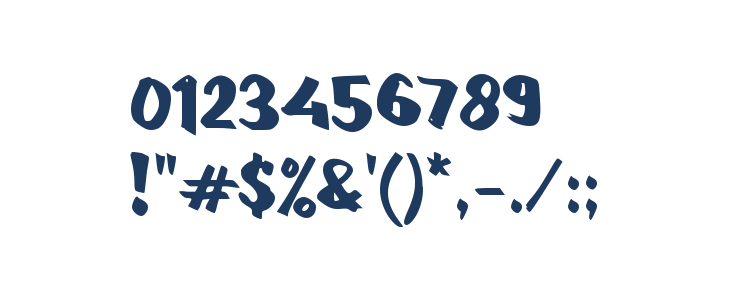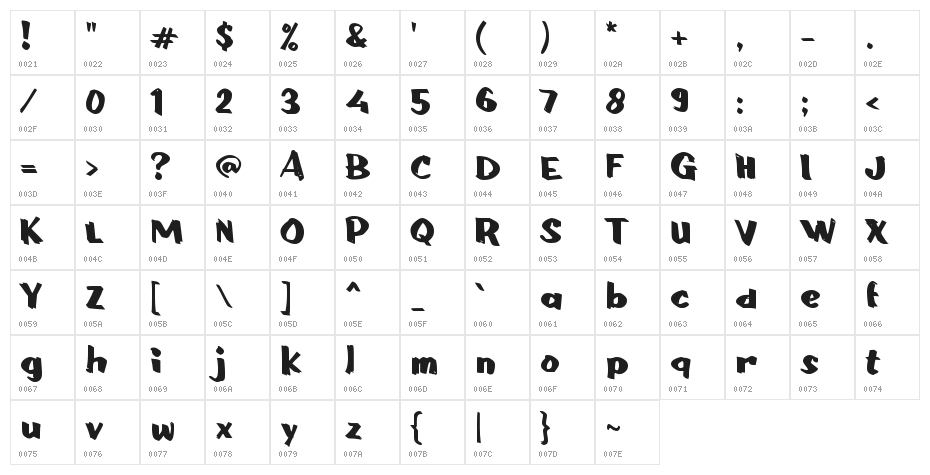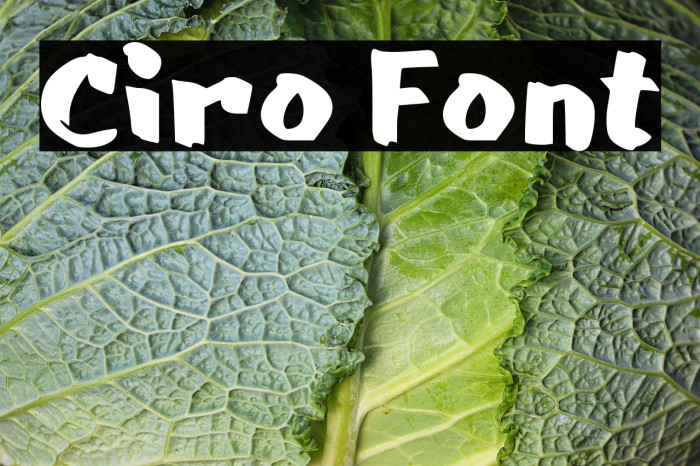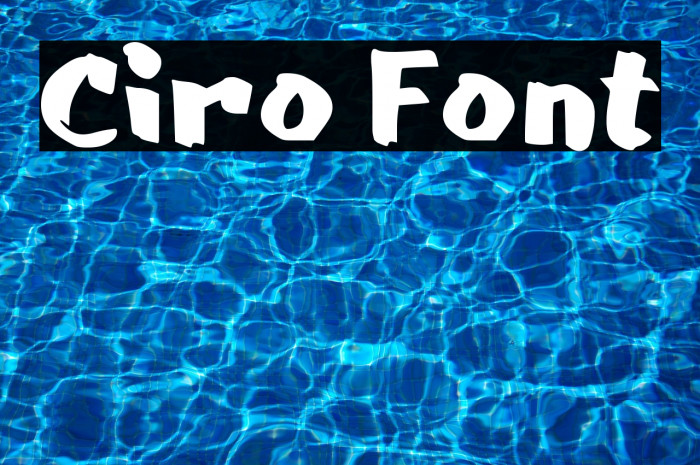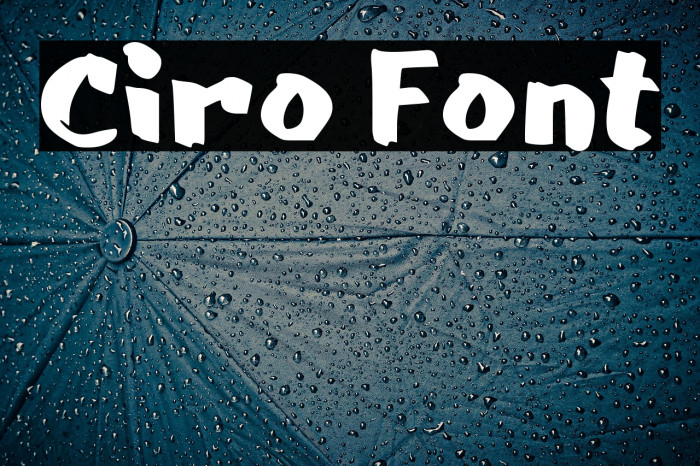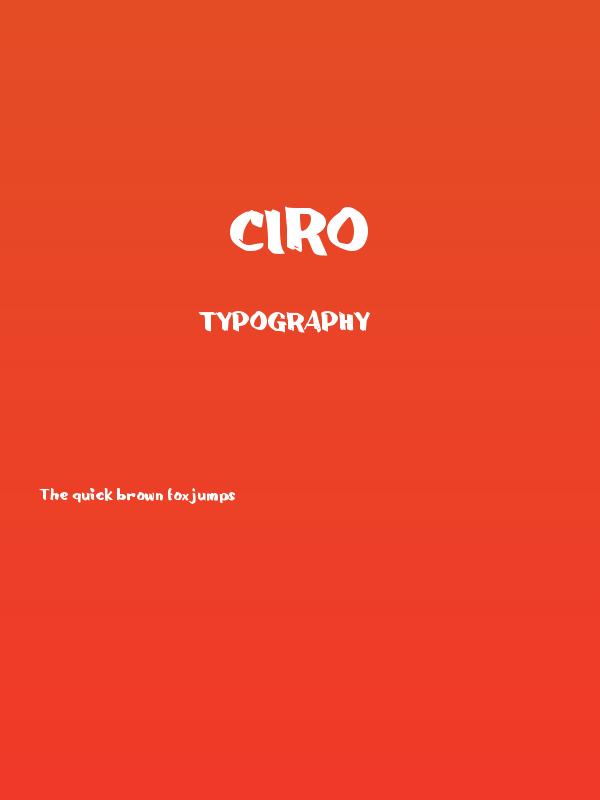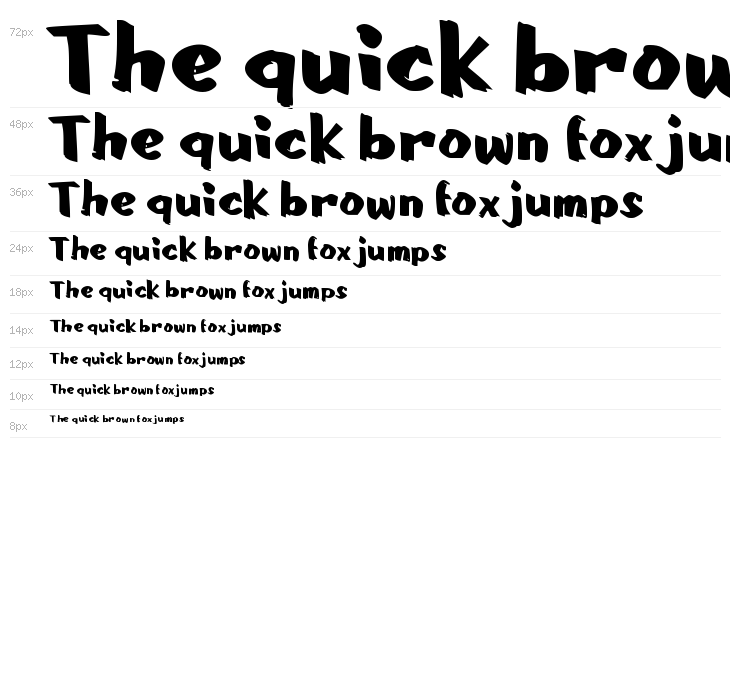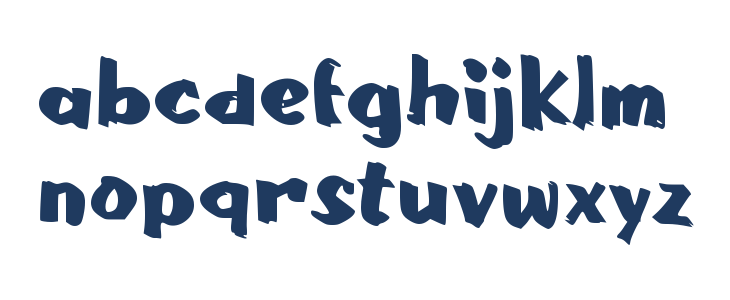
Ciro Font
Ciro Description
This font features a bold and dynamic style with a hand-drawn appearance. The letters are irregular and slightly tilted, giving it a playful and energetic feel. The strokes are thick and uneven, adding to its informal and artistic character. The uppercase and lowercase letters maintain a consistent style, while the numbers and special characters complement the overall design. This font is ideal for projects that require a fun and engaging look, such as posters, comic books, or children's book covers.
| Overall Style | Playful, Artistic |
| Use Case | Headlines, Posters, Branding |
| Proposed Projects | Perfect for comic books, children's book covers, posters, and playful branding. |